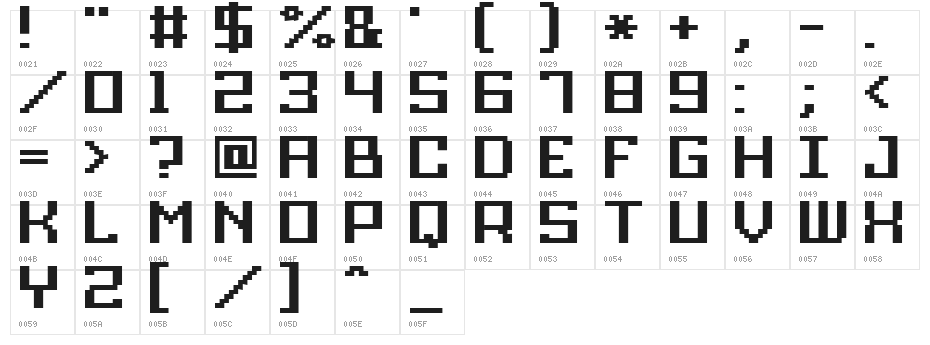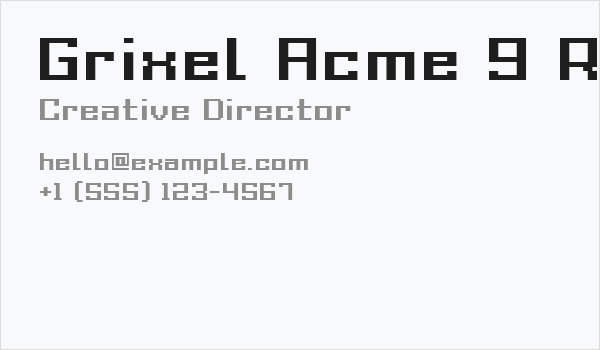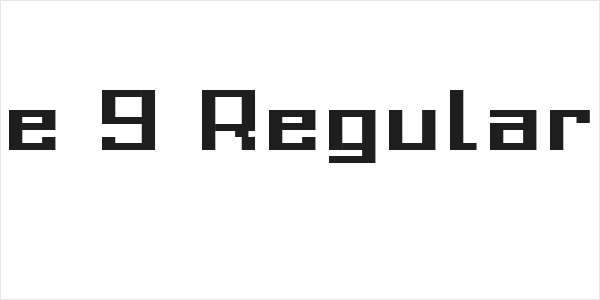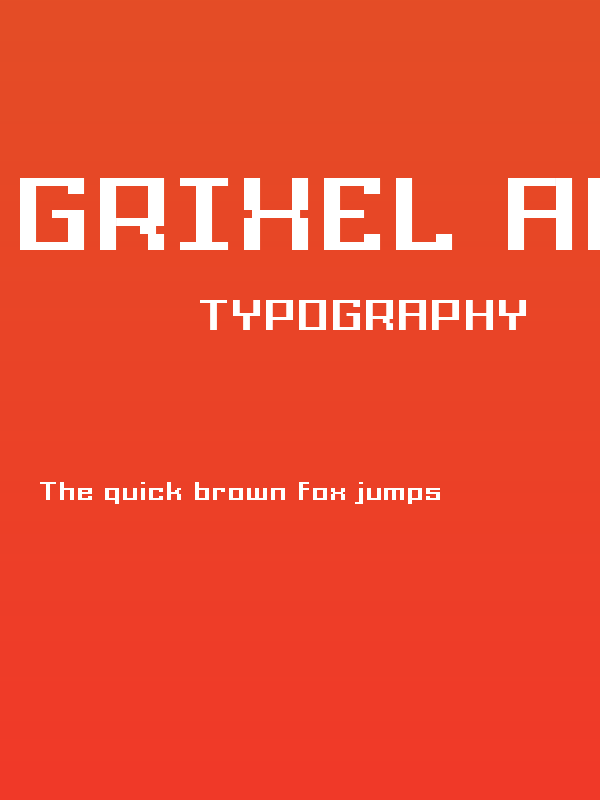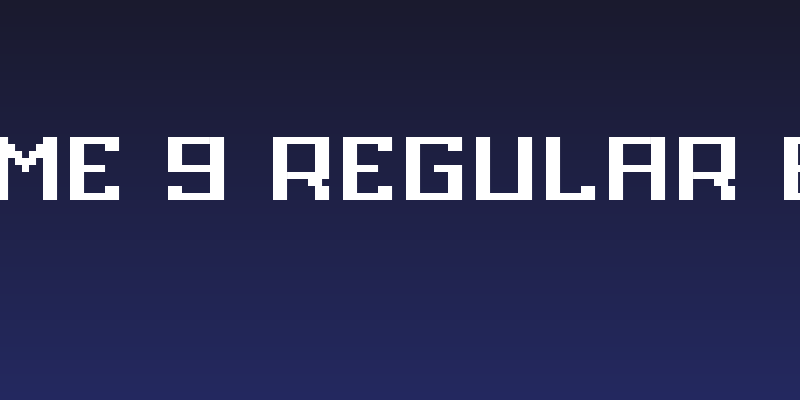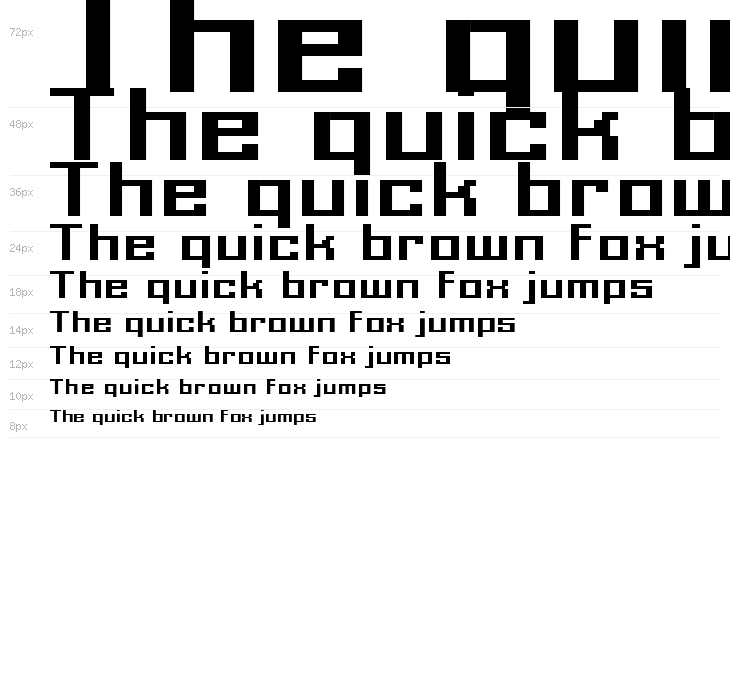
Grixel Acme 9 Regular Bold Xtnd Font
Grixel Acme 9 Regular Bold Xtnd Description
This font features a pixelated, blocky design reminiscent of early digital displays and video games. The characters are uniformly structured with a consistent height and width, giving it a monospaced appearance. The uppercase and lowercase letters maintain a geometric form, with sharp angles and straight lines, enhancing its digital aesthetic. The numbers and special characters follow the same design principles, ensuring a cohesive look across all glyphs. This font's boldness and distinct style make it ideal for projects that require a retro or tech-inspired theme.
| Overall Style | Retro, Digital |
| Use Case | Headlines, Logos, Digital displays |
| Proposed Projects | Ideal for video game design, tech-themed posters, digital art, and retro-style branding. |